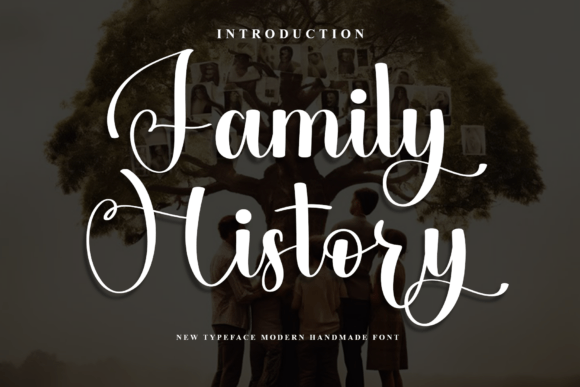
Discover the Charm of Family History Font: A Perfect Blend of Warmth and Friendliness
Are you looking for a font that can add a personal touch to your designs? Look no further than the Family History Font. This casual and creative font is designed to exude warmth and friendliness, making it perfect for personal projects, invitations, and social media graphics. In this article, we’ll explore the unique features of the Family History Font and how it can elevate your designs.
What Makes Family History Font So Special?
The Family History Font is a hand-drawn font that boasts round, playful strokes, creating a relaxed and approachable feel. Its charming aesthetic adds a fun and unique touch to any design, making it stand out from more traditional fonts. Whether you’re working on a personal project or a professional design, this font is sure to make your work shine.
- Warm and Friendly: The font’s warm and friendly tone makes it perfect for designs that require a personal touch.
- Playful Strokes: The round, playful strokes create a relaxed and approachable feel, adding a fun vibe to your designs.
- Hand-Drawn Aesthetic: The font’s hand-drawn aesthetic gives it a unique and charming feel that’s perfect for creative projects.
Perfect for Personal Projects and More
The Family History Font is incredibly versatile and can be used for a wide range of projects. Here are some ideas to get you started:
- Personal Invitations: Create custom invitations for special occasions like weddings, birthdays, and baby showers.
- Social Media Graphics: Add a personal touch to your social media graphics, such as Facebook posts, Instagram stories, and Twitter headers.
- Blog Posts: Use the font to add a friendly and approachable tone to your blog posts.
- DIY Projects: The font is perfect for DIY projects, such as crafting, scrapbooking, and home decor.
Tips for Using Family History Font in Your Designs
To get the most out of the Family History Font, here are some design tips to keep in mind:
- Keep it Simple: Don’t overcomplicate your design. The font’s playful strokes and charming aesthetic are enough to make your design stand out.
- Experiment with Colors: The font looks great in a variety of colors, so don’t be afraid to experiment and find the perfect hue for your design.
- Mix and Match: Try pairing the font with other fonts or graphics to create a unique and eye-catching design.
The Benefits of Using Family History Font
So, why choose the Family History Font for your designs? Here are just a few benefits:
- Unique and Creative: The font’s hand-drawn aesthetic and playful strokes make it a one-of-a-kind font that’s sure to make your designs stand out.
- Easy to Read: The font is clear and easy to read, making it perfect for designs that require a lot of text.
- Versatile: The font can be used for a wide range of projects, from personal invitations to social media graphics.
In conclusion, the Family History Font is a charming and creative font that’s perfect for adding a personal touch to your designs. Its warm and friendly tone, playful strokes, and hand-drawn aesthetic make it a unique and versatile font that’s sure to elevate your work. Whether you’re working on a personal project or a professional design, this font is sure to make your work shine.